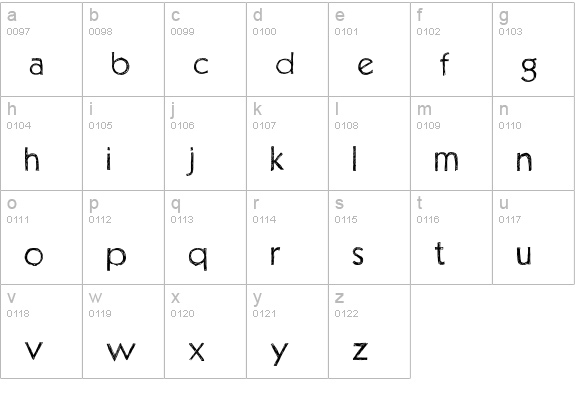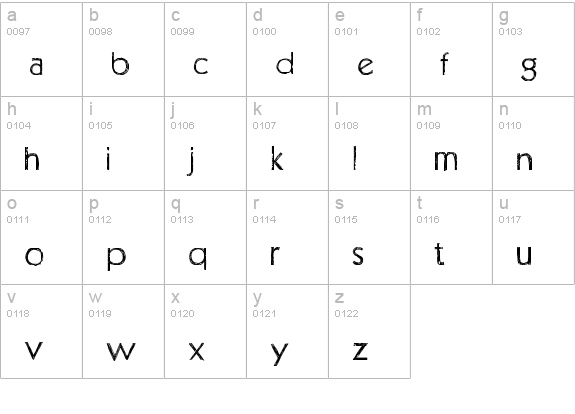
PositivA Font Details
PositivA font is a versatile and modern typeface that exudes positivity and charm. Its clean lines and stylish curves make it perfect for a wide range of design projects, from branding to editorial layouts. The elegant letterforms of PositivA font are designed to convey a sense of optimism and creativity. What sets PositivA font apart is not just its aesthetic appeal, but also its versatility. Whether you're working on a logo, website, or marketing materials, this font will bring a touch of sophistication to your designs. Its balanced proportions and smooth strokes make it easy to read and pleasing to the eye. One of the best things about PositivA font is that it is free to download at FontsMarket.com. This means that you can start using this beautiful typeface in your projects right away, without having to worry about licensing fees. So why wait? Download PositivA font today and add a dash of positivity to your designs!